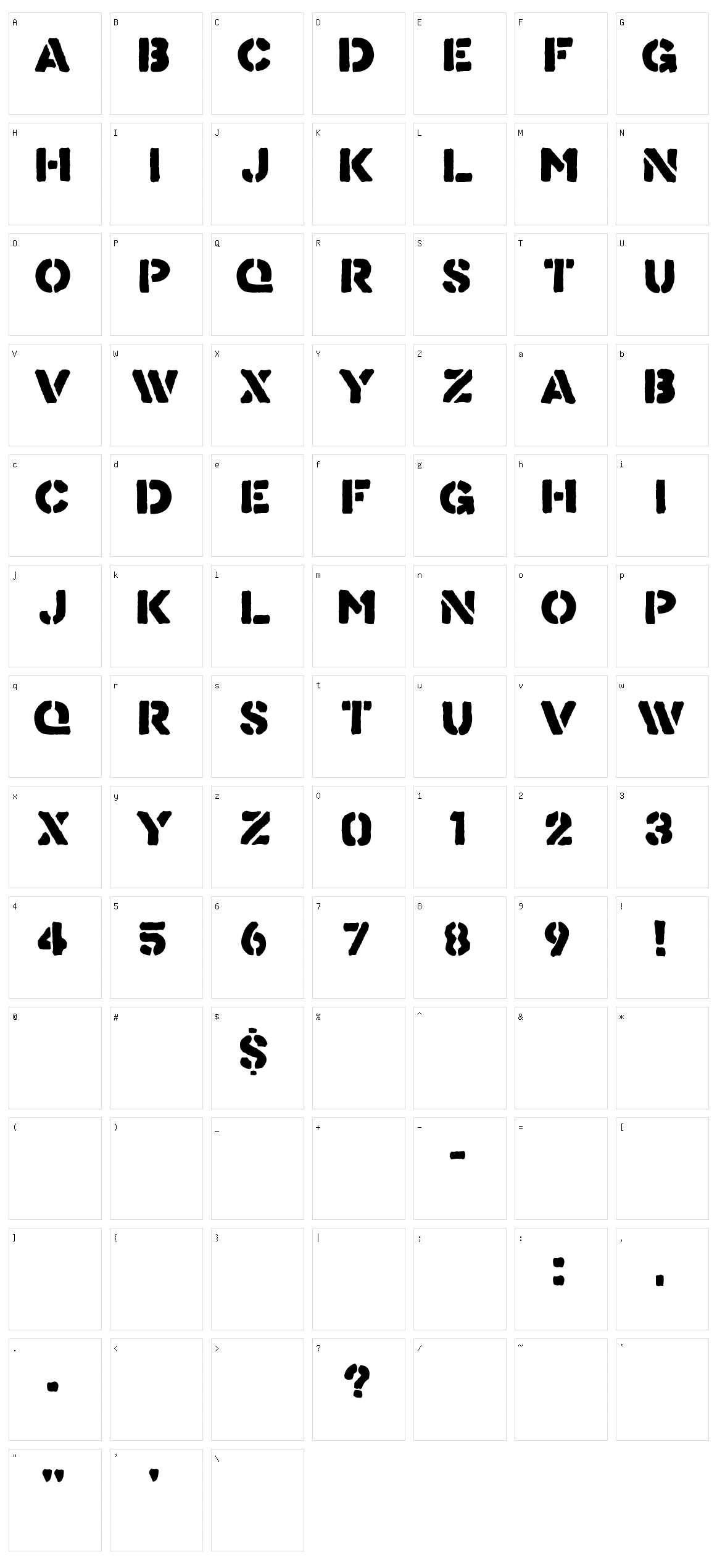
The free font Know Your Product is carefully designed by Vic Fieger, showcasing a thoughtful balance of creativity and usability and falls under the Stencil font style. When you download the ZIP file, it contains only 13.72 KB of font files, making it lightweight and quick to download. Please review the license details below to understand permitted usage and distribution rights. If license information is not available, we recommend using this font for personal projects only or contacting the author directly for commercial usage permissions.